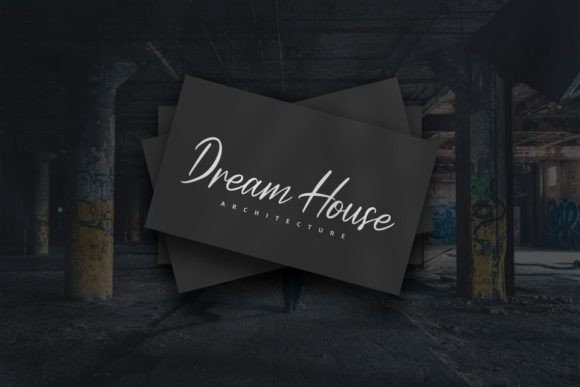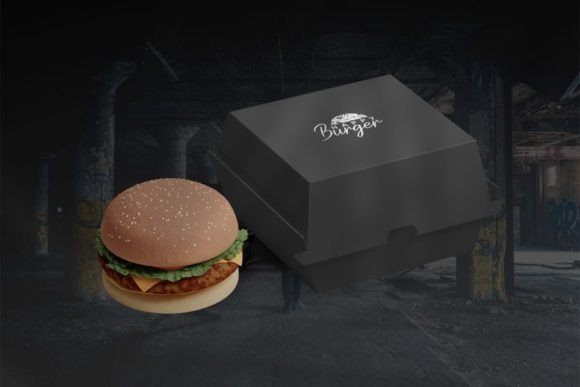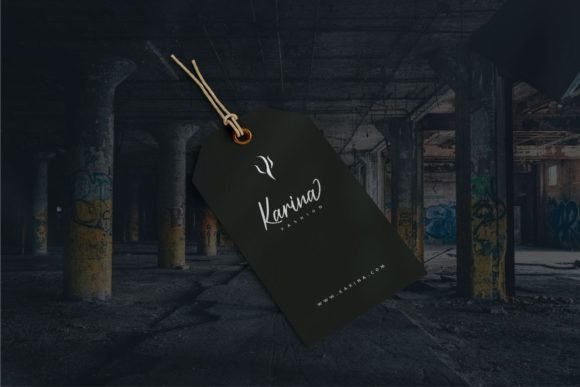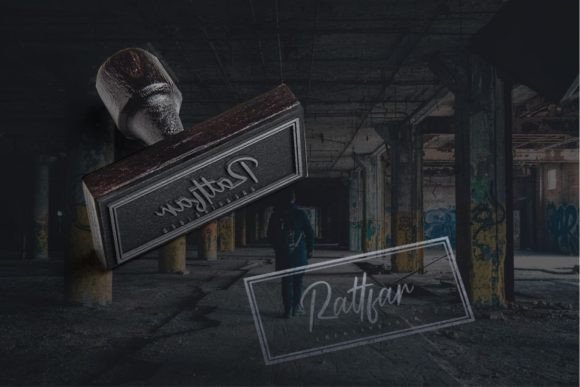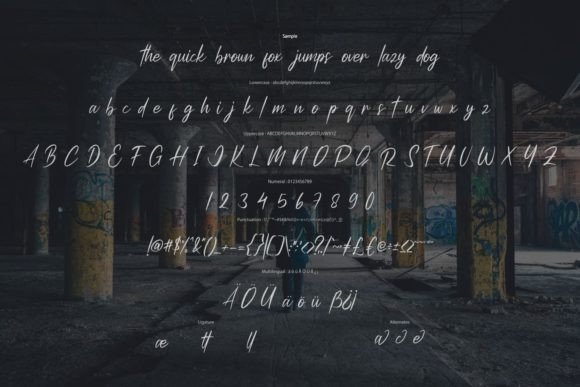
Introducing Hellitos Font: Elevate Your Designs with Modern Calligraphy
In the world of typography, a beautiful font can make all the difference in creating stunning designs. If you’re a designer, crafter, or DIY enthusiast looking for a modern script font with a touch of elegance, look no further than Hellitos Font. This gorgeous font is perfect for adding a personal touch to your invitations, greeting cards, branding materials, business cards, quotes, posters, and more!
What Makes Hellitos Font Special?
Hellitos is a modern script font that boasts a beautiful calligraphy style, making it perfect for designs that require a touch of sophistication and elegance. Its unique and flowing lines will add a personal touch to any project, making it stand out from the crowd. Whether you’re designing for a client or creating something for personal use, Hellitos Font is sure to impress.
Key Features of Hellitos Font
- Modern Script Font: Hellitos is a modern script font with a calligraphy style that will add a touch of elegance to your designs.
- PUA Encoded: This font is PUA (Private Use Area) encoded, which means you can access all glyphs and swashes with ease. This feature makes it easy to use and customize the font to suit your design needs.
- Versatile: Hellitos Font is perfect for a wide range of design projects, including invitations, greeting cards, branding materials, business cards, quotes, posters, and more!
Why Choose Hellitos Font?
With so many fonts available, why choose Hellitos Font? Here are just a few reasons why designers and crafters love this font:
- Elegant and Sophisticated: Hellitos Font adds a touch of elegance and sophistication to any design, making it perfect for high-end clients or special projects.
- Easy to Use: The PUA encoding makes it easy to access all glyphs and swashes, so you can customize the font to suit your design needs.
- Time-Saving: With Hellitos Font, you can create stunning designs in no time. The font’s unique and flowing lines will save you time and effort in creating beautiful designs.
How to Use Hellitos Font in Your Designs
Using Hellitos Font in your designs is easy! Here are a few tips to get you started:
- Pair it with Other Fonts: Hellitos Font pairs well with other fonts, so feel free to experiment with different combinations to find the perfect look for your design.
- Experiment with Swashes: The PUA encoding allows you to access all glyphs and swashes, so don’t be afraid to experiment and find the perfect look for your design.
- Use it for Headings and Titles: Hellitos Font is perfect for headings and titles, so use it to add a touch of elegance and sophistication to your designs.
Whether you’re a seasoned designer or just starting out, Hellitos Font is a must-have in your font collection. Its unique and flowing lines will add a personal touch to any project, making it stand out from the crowd. So go ahead, get creative, and show the world what you can do with Hellitos Font!